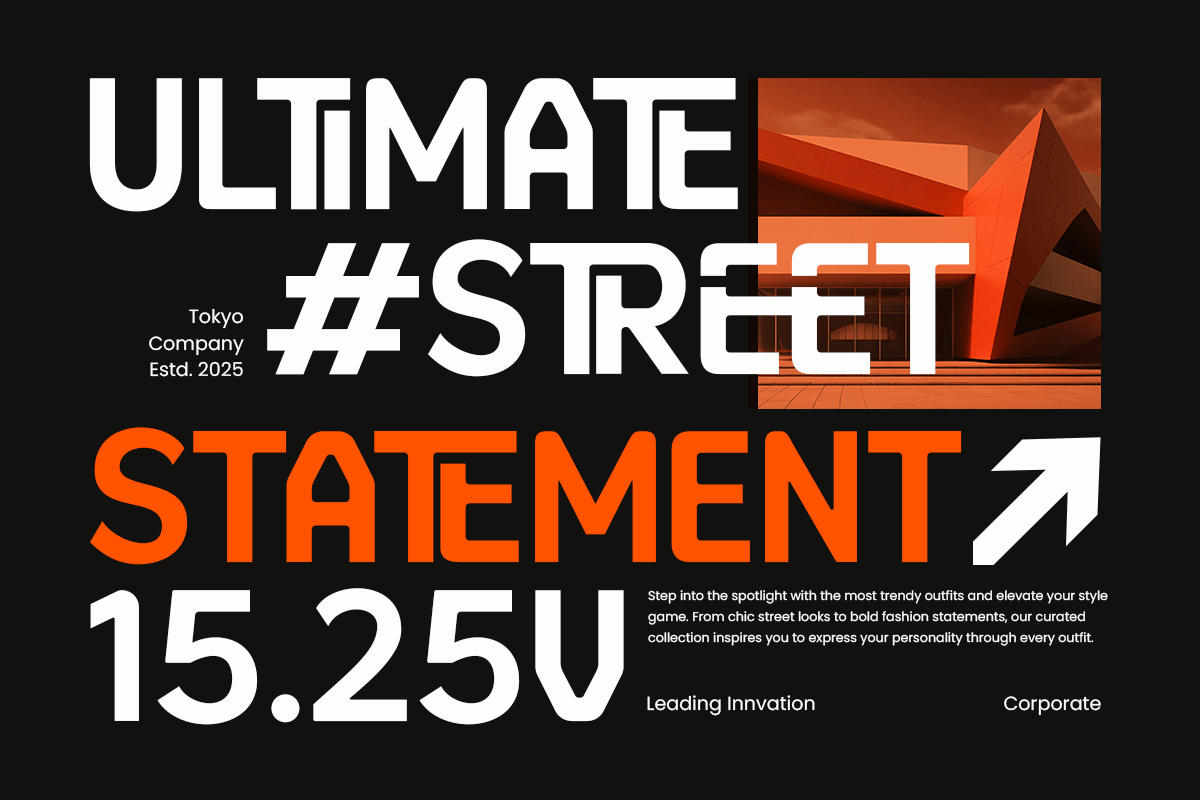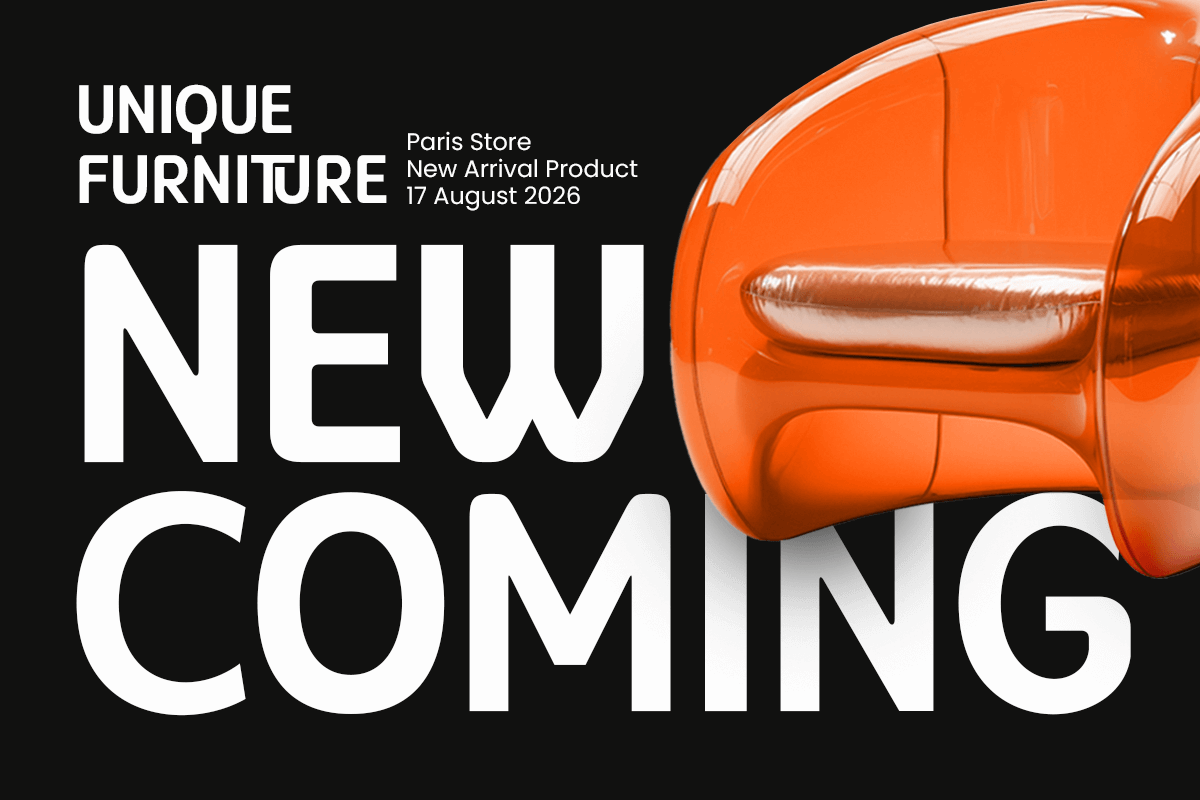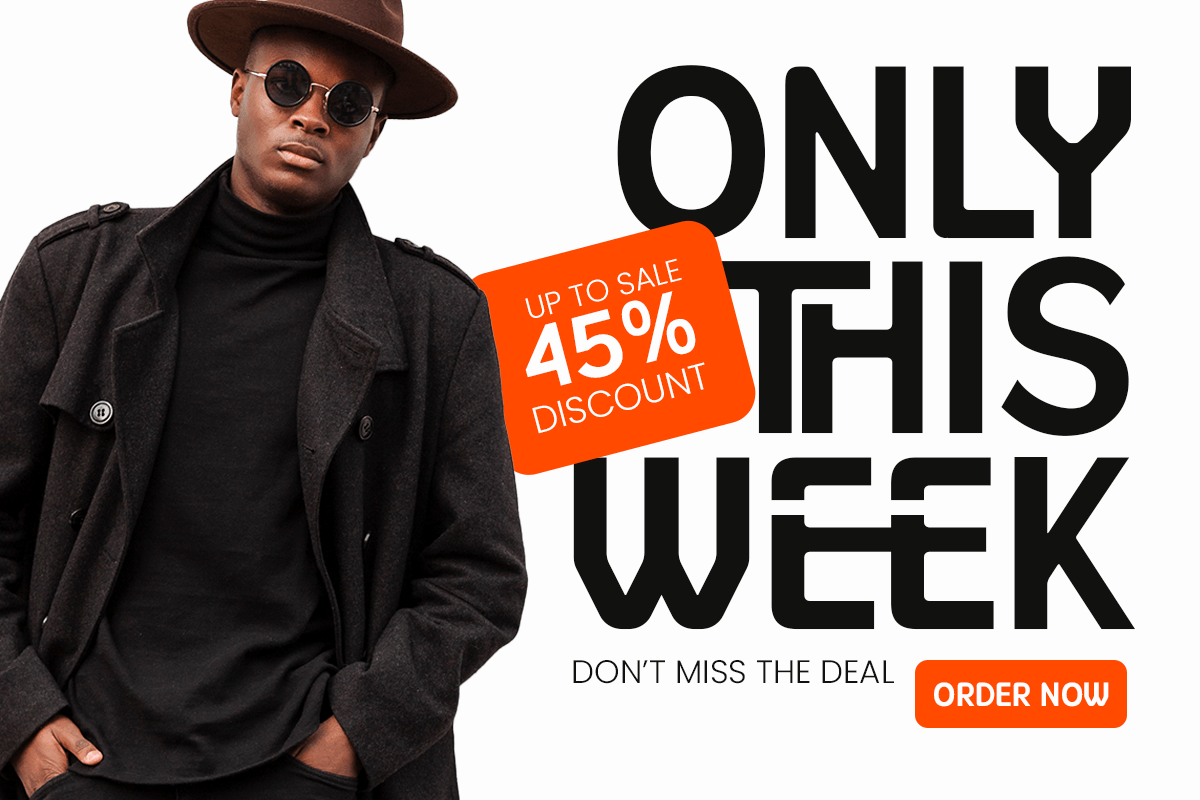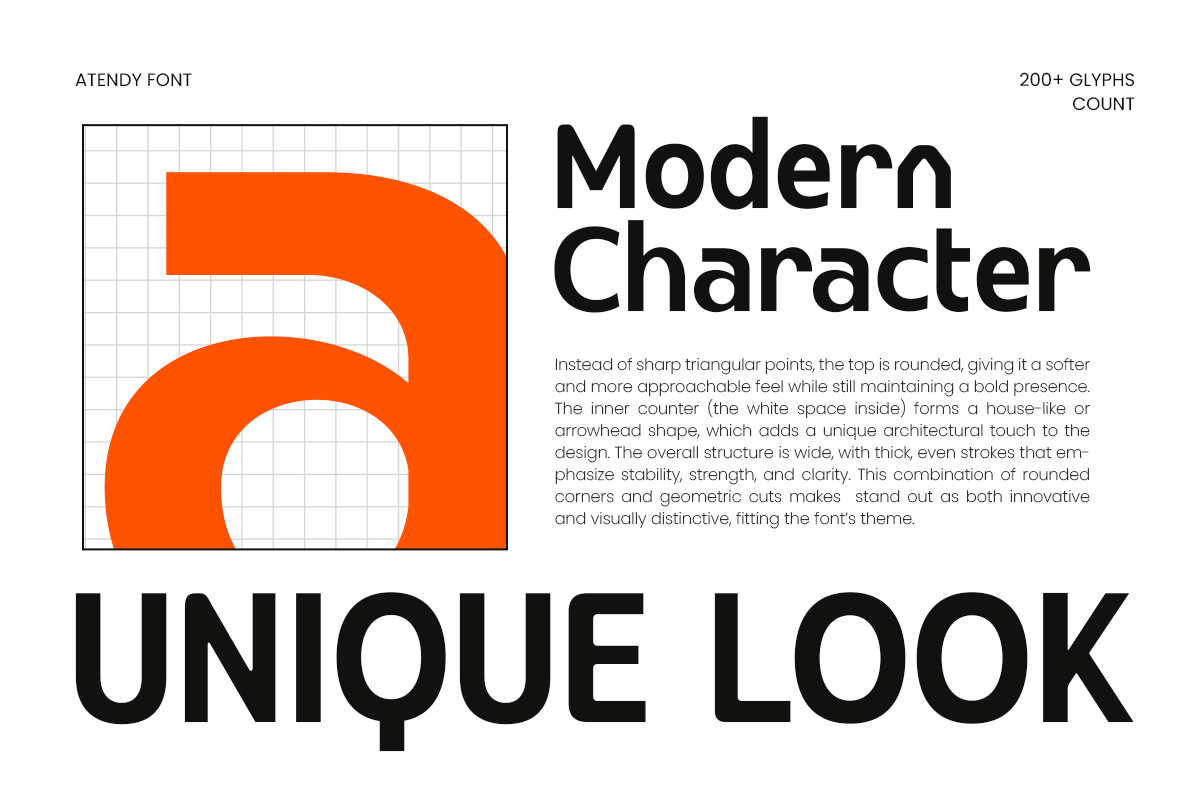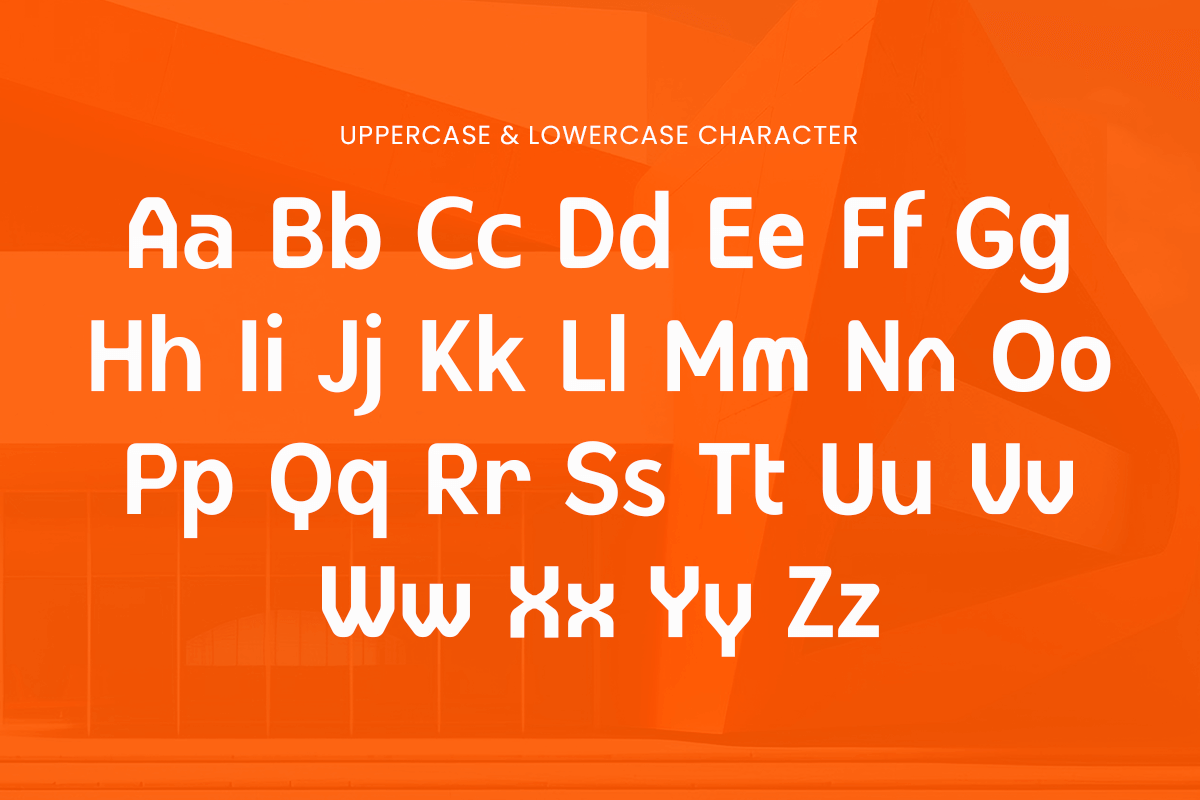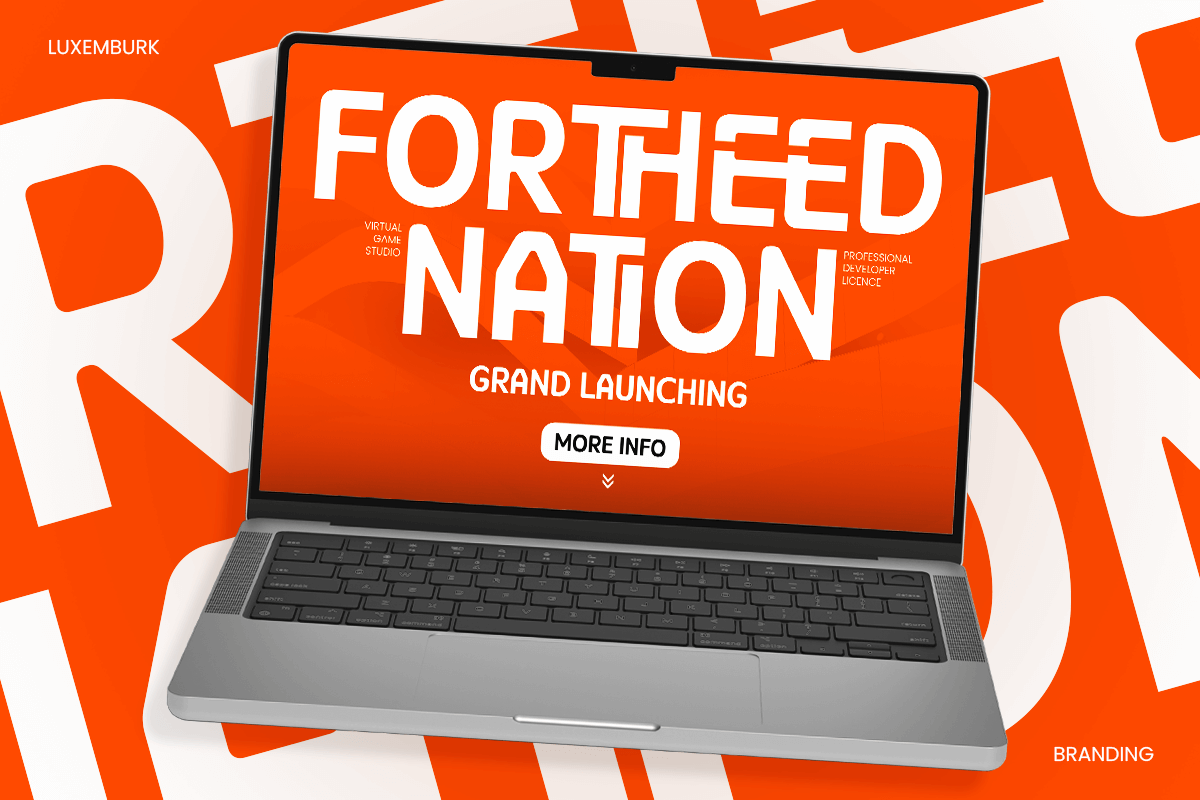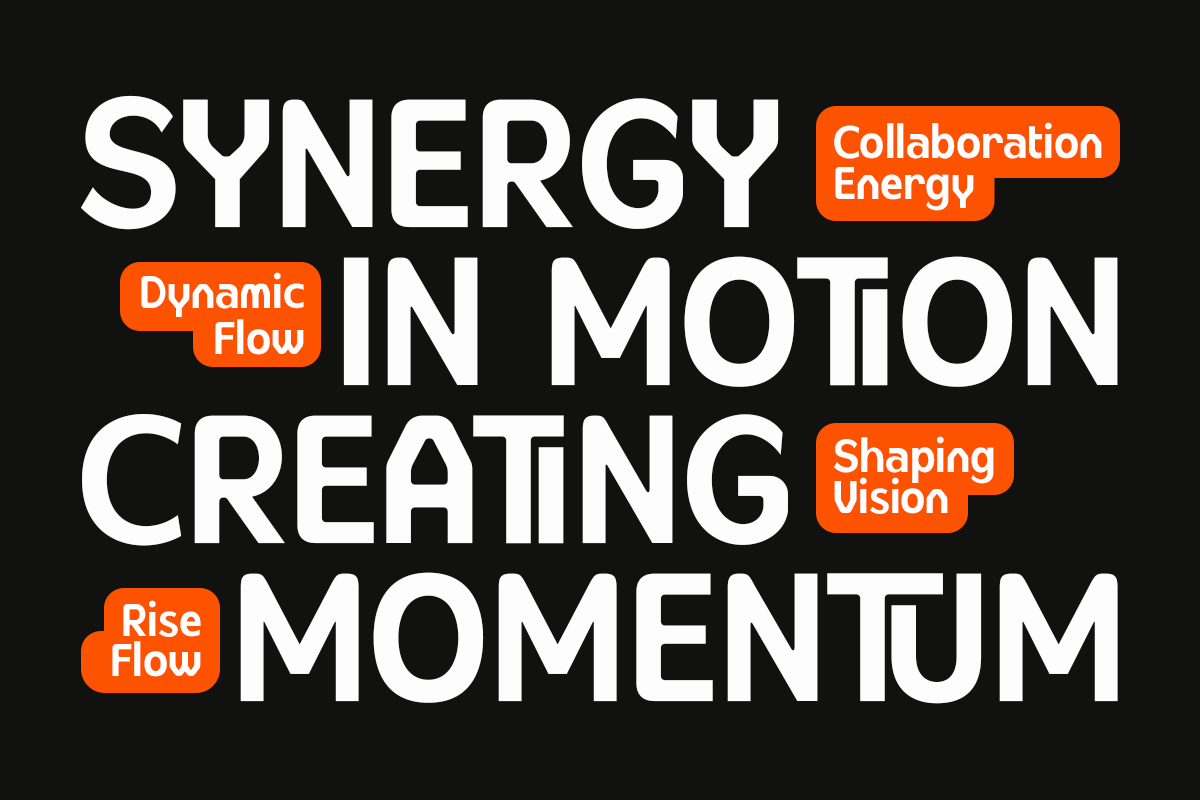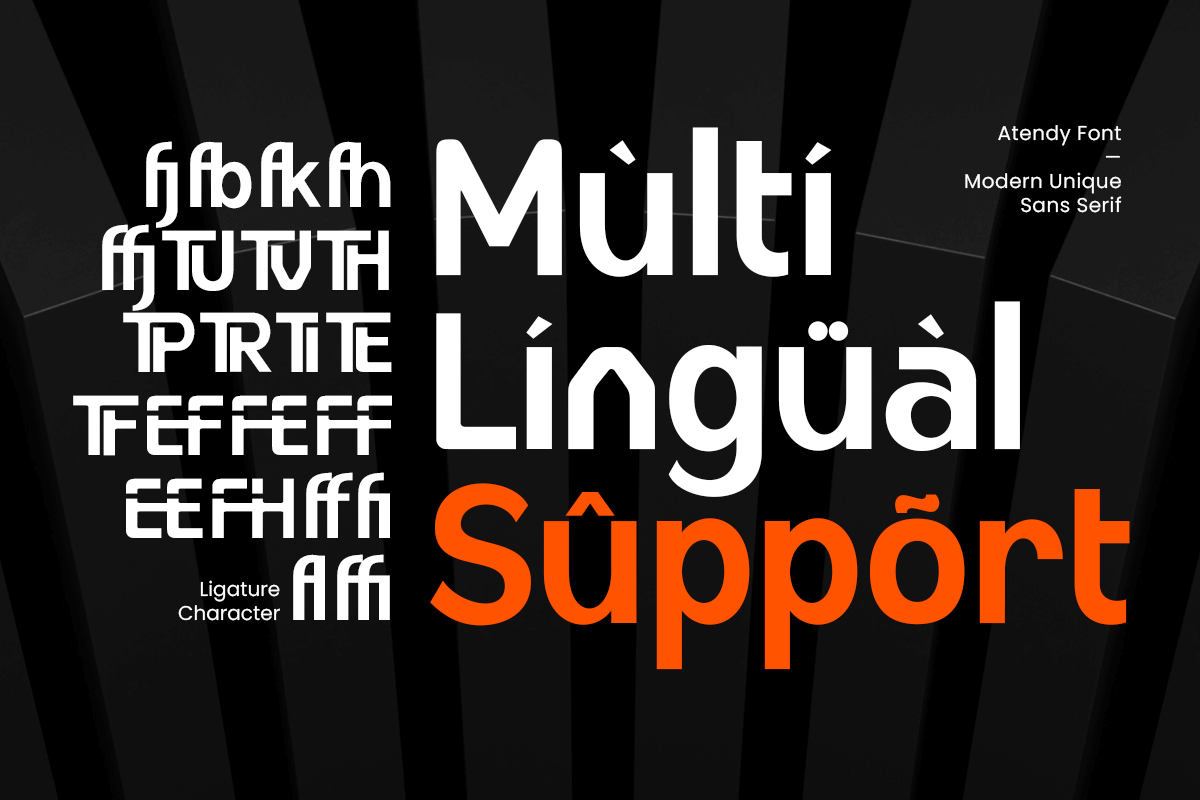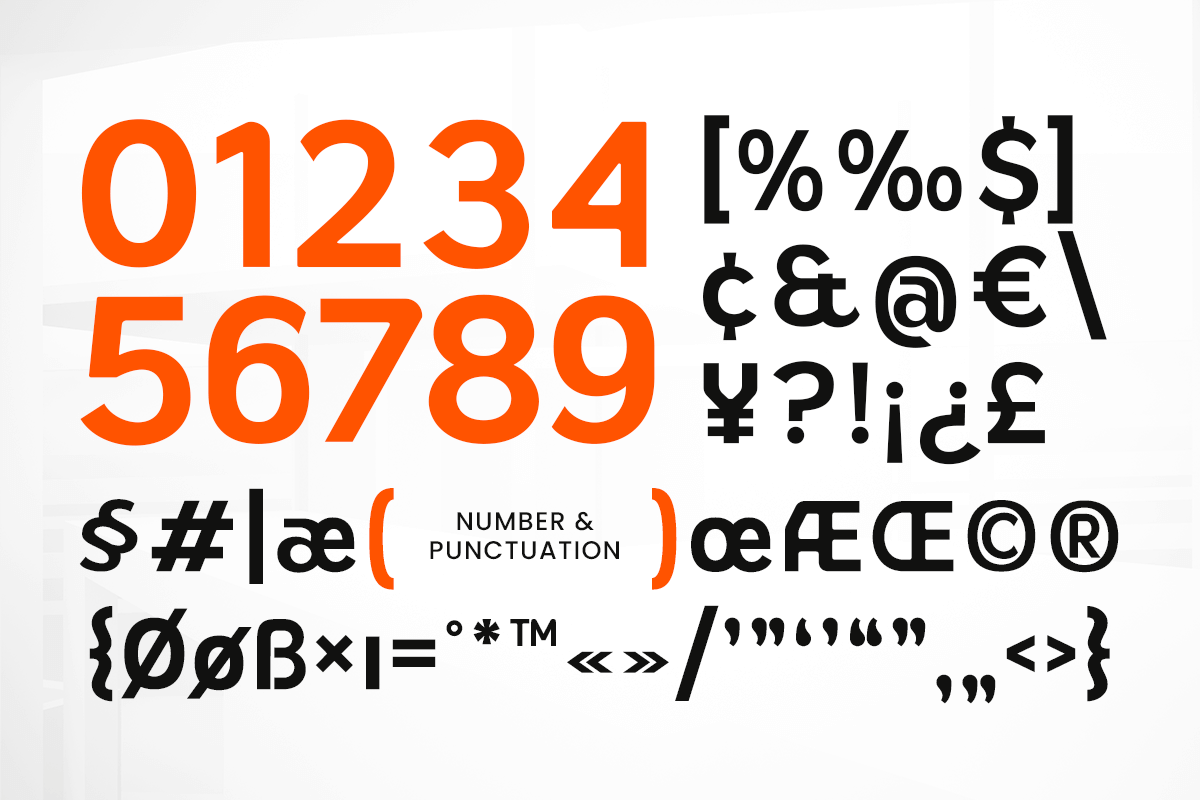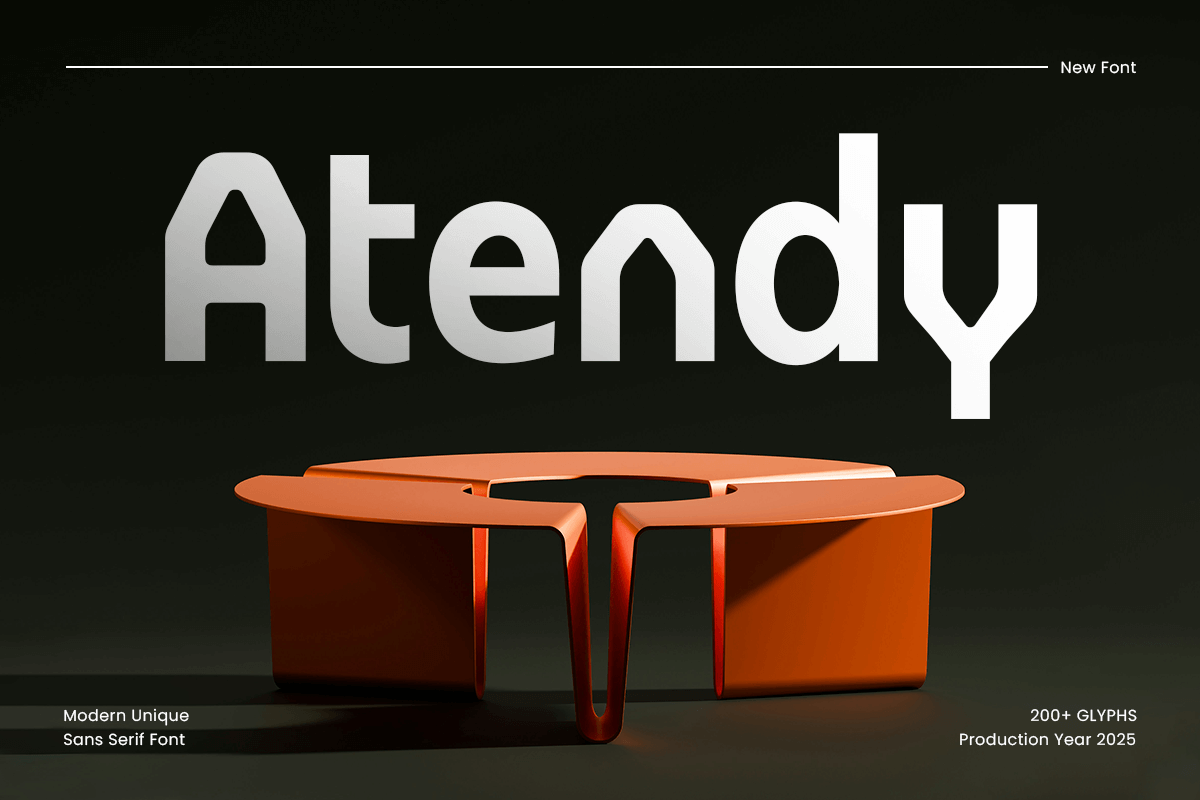
Atendy Modern Unique Sans Serif Font
Atendy is a modern and unique sans serif font designed to bring clarity and sophistication to your creative projects. Its sleek, minimalist letterforms make it perfect for branding, logos, web and app interfaces, headlines, and editorial designs. With a clean and professional style, Atendy ensures readability while delivering a contemporary and visually appealing aesthetic. Ideal for designers looking to create modern, polished, and versatile designs across digital and print media.
Atendy – Modern Unique Sans Serif Font Features
\* Modern and versatile character set
\* Sleek, minimalist, and professional design
\* Includes uppercase, lowercase, numerals, and punctuation
\* Suitable for digital and print projects
\* OpenType features for extra versatility
Bring modern elegance and unique style to your designs with Atendy – the perfect sans serif font for versatile projects.